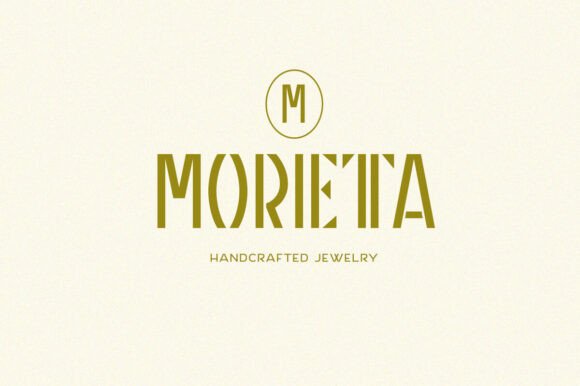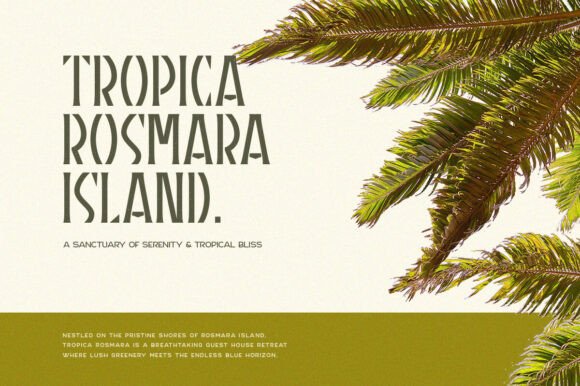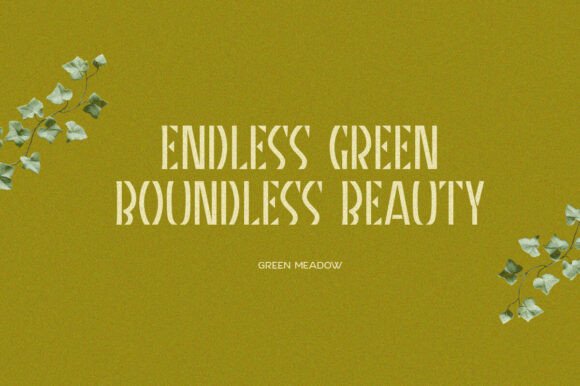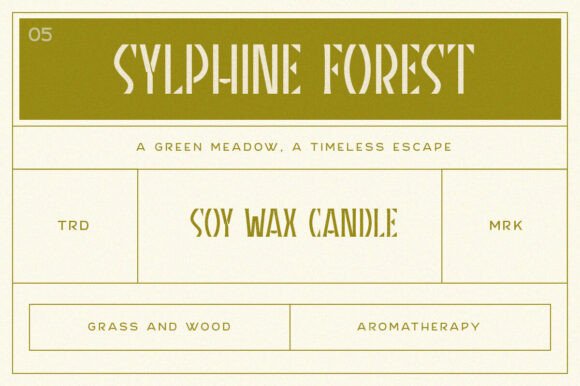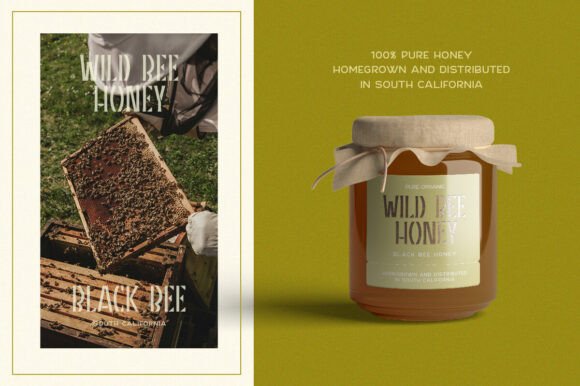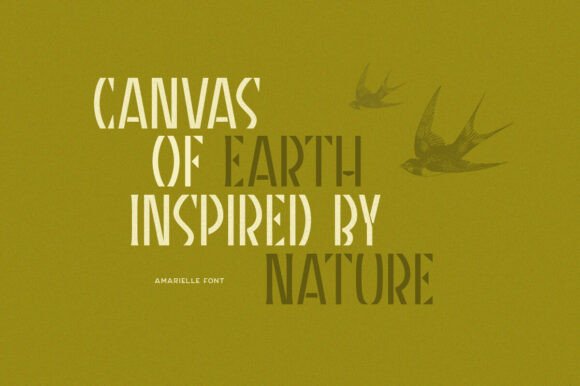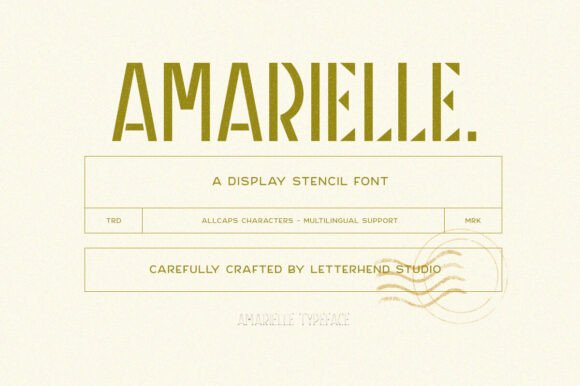
The Power of Typography: Discovering Amarielle Font
I’ll never forget the design project that pushed me to explore the world of bold, modern fonts. I was working on a branding campaign for a trendy urban clothing line, and I needed a typeface that would convey confidence, grit, and a touch of sophistication. After hours of scouring font libraries and testing various options, I stumbled upon Amarielle – a game-changing stencil display font that instantly elevated my design.
First Impressions: A Bold and Modern Marvel
Amarielle is a bold, modern stencil display font designed for those who dare to stand out. With its sharp edges, industrial aesthetics, and military-inspired precision, this all-caps typeface delivers a strong, commanding presence. Perfect for branding, posters, editorial design, labels, signage, and high-impact visuals, Amarielle blends urban grit with contemporary elegance.
- ✨ **Bold and commanding presence** – Amarielle demands attention and makes a statement in any design.
- ✅ **Multilingual support** – perfect for global brands or projects with diverse audiences.
- 💡 **Industrial-chic aesthetic** – adds an edgy, modern touch to designs.
- 🎨 **Versatility** – suitable for various design applications, from branding to signage.
While Amarielle is an exceptional font, there are a few minor considerations to keep in mind:
- 🤔 **Limited use in body text** – due to its bold and stencil nature, Amarielle is best suited for headlines and titles.
- ⚠️ **Glyph limitations** – some special characters or diacritics might not be available or may require manual adjustments.
The Designer Inspiration Behind Amarielle
Amarielle’s design draws inspiration from urban landscapes, industrial typography, and military aesthetics. The font’s creator aimed to craft a typeface that embodies confidence, resilience, and a touch of rebelliousness. By combining sharp edges, precise lines, and a bold character, Amarielle Font has become a go-to choice for designers seeking a modern, attention-grabbing look.
Q: What is Amarielle’s primary use case?
A: Amarielle is ideal for high-impact designs, such as branding, posters, editorial design, labels, and signage.
Q: Can I use Amarielle for body text?
A: While possible, Amarielle’s bold and stencil nature make it better suited for headlines and titles.
Q: Does Amarielle support multilingual text?
A: Yes, Amarielle offers multilingual support, making it suitable for global brands or projects with diverse audiences.